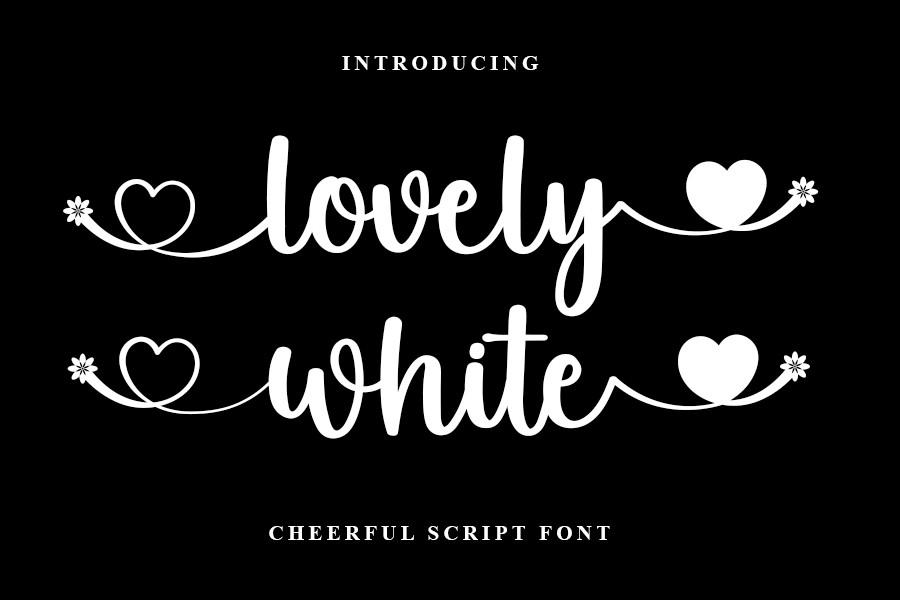
Lovely White Font Description
Lovely White is an enchanting handwritten font with a wide spectrum of applications that range from greeting cards to headlines. Add it to your fonts’ library and you’re guaranteed a romantic feel to your next project! This font is PUA encoded, which means you can access all of the glyphs and swashes with ease!